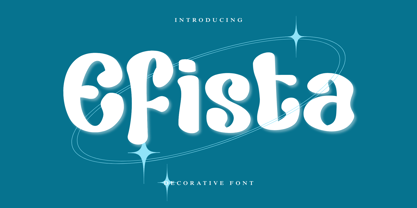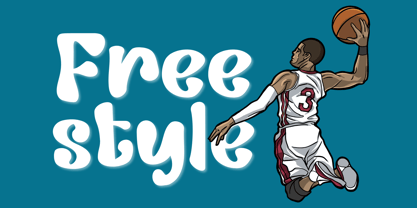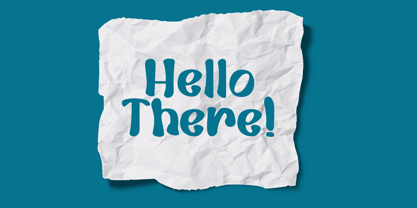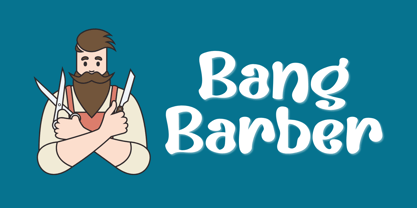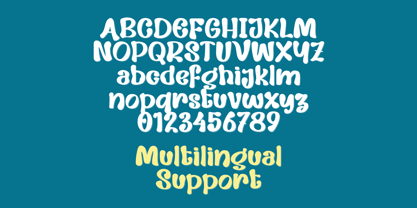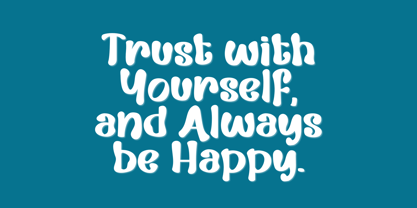
The Efista Font Family was designed by Ahmad Afandi and published by Letterafandi Studio. Efista contains 2 styles and family package options.
Introducing Efista, a captivating, ornamental typeface designed to add a touch of elegance to your display text. A superb balance between classic and contemporary, Efista showcases a decorative design that exudes an irresistible charm. This unique font stands out with its stylish flair ensuring it's a perfect choice for your artistic endeavors. Let the mesmerizing beauty of Efista leave a distinctive mark on your striking visuals.